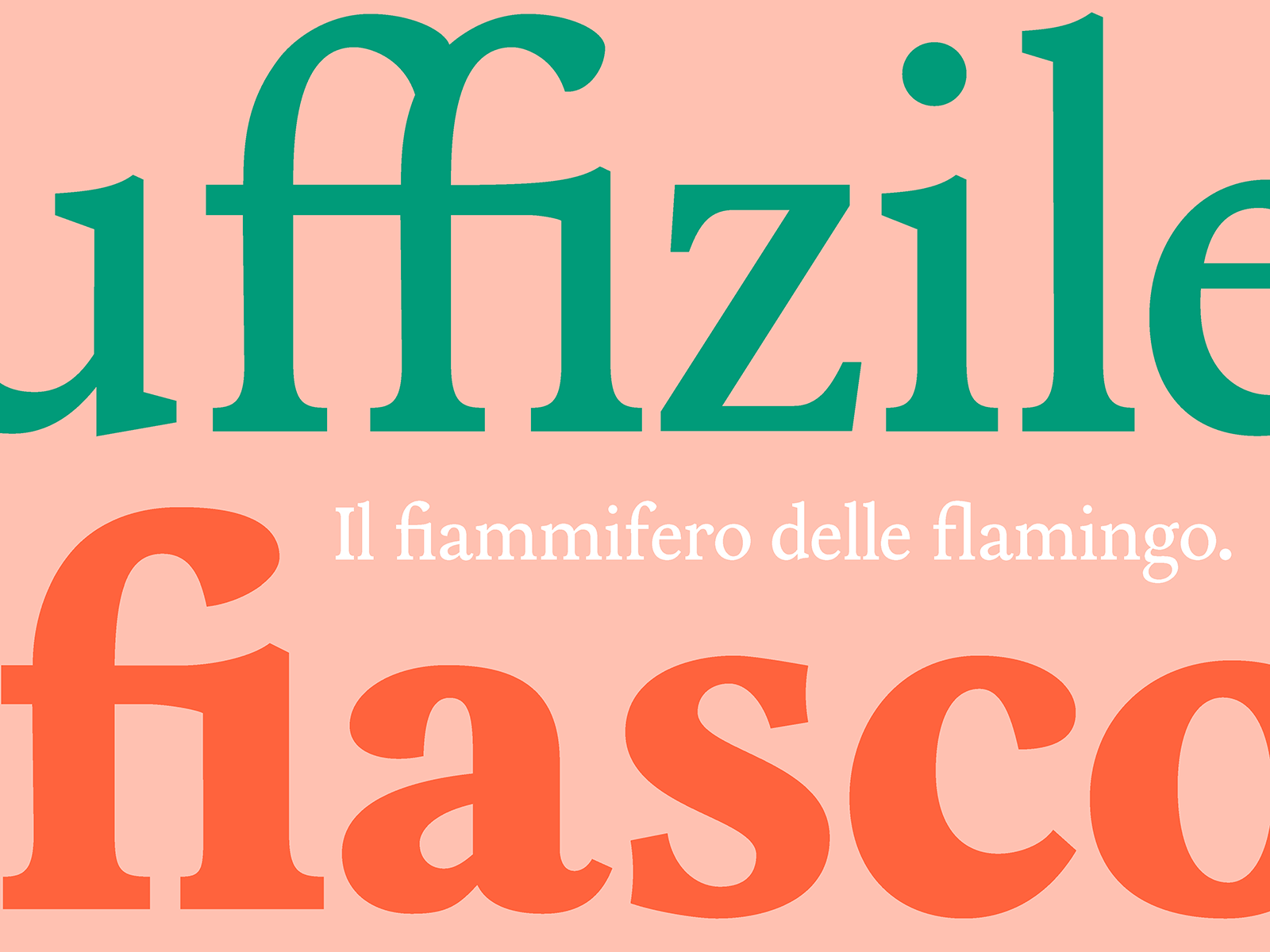
Domenico
Domenico is a typeface with 18th century roots. The text that inspired this design is from Urbino, Italy and published in 1723. The typeface originates from this period’s printing process, which created uneven shapes and vagueness in the letterforms. These details were left up to reinterpretation as new terminals and junctions that give it a unique look and feel.
Nevertheless, Domenico still radiates a historic aspect by keeping close to the original weight distribution and proportions of the text. The resulting form is nostalgic yet contemporary, especially in more expressive characters like the ampersand.
It has distinct qualities, such as classic proportions in regards to the ascender and descender heights. The character set includes long and thin diacritics, since these had an important role in the original language the text was set in. Heavy punctuation can also be found in the set, possibly due to the printing method expanding the ink in small periods and commas.
The family currently includes Regular and Bold weights and shows a preview of what the Italic version will look like. Domenico can be used as a Text typeface, since this is where it originates from, but also as a Display because enlarging these letterforms allows the readers to appreciate the detail and craft.